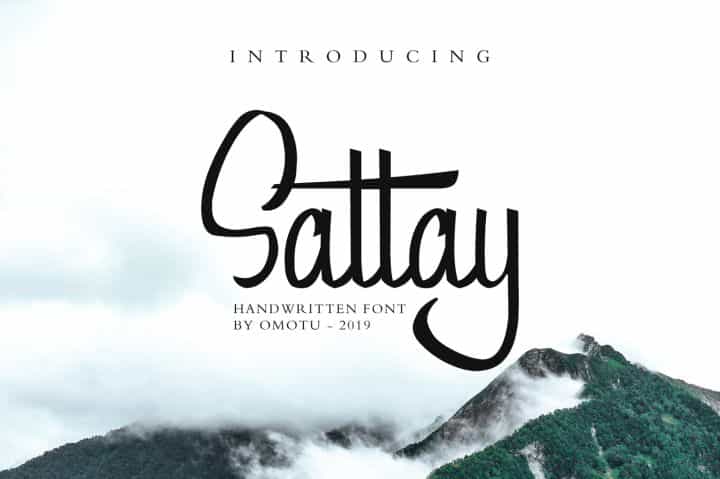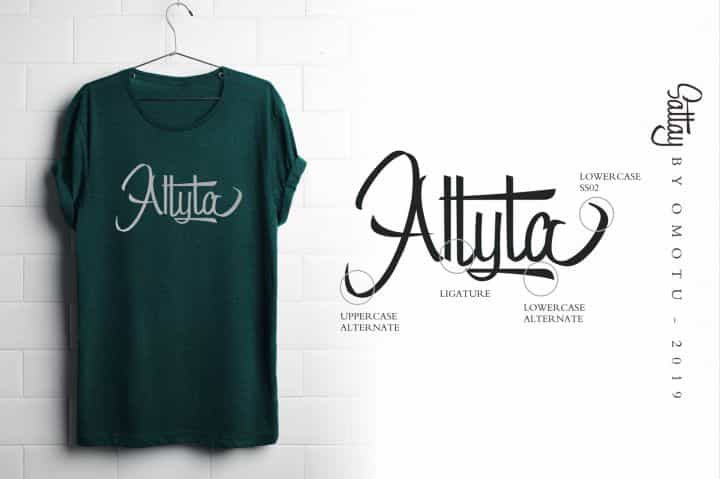
Discover Sattay Script Font, part of the Calligraphy collection—a versatile and unique font perfect for adding a personal touch to your projects. Download it for free and enjoy crafting designs with style, from invitations to social media posts. This font is available exclusively for personal use, giving you the freedom to create without limits. Unlock your creativity with Sattay Script Font today!
Introducing Sattay Font. Sattay was designed and shared by Omotu. Sattay – a new modern & fresh script that is both handwritten and has the style of a script makes this font look elegant, stylish and perfect for any awesome projects that need handwriting taste.